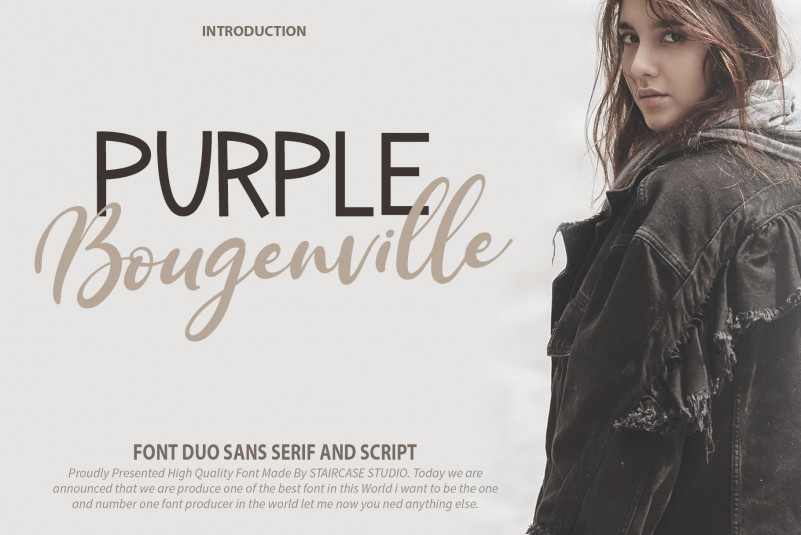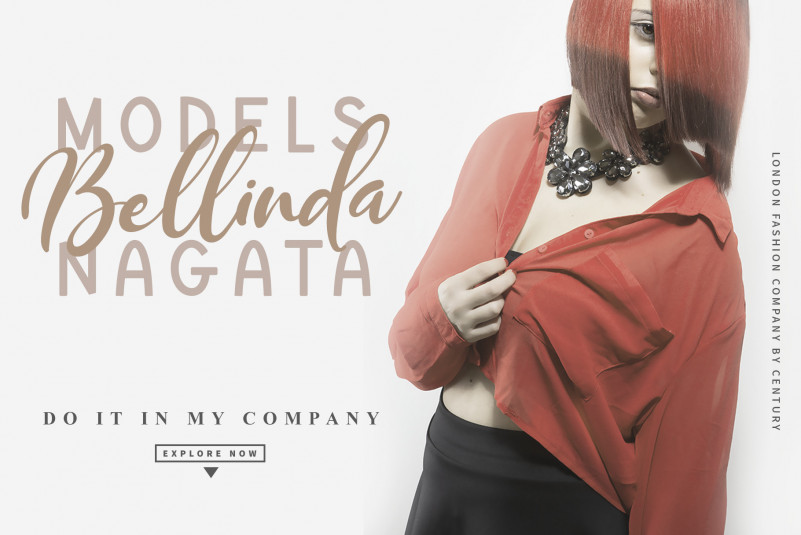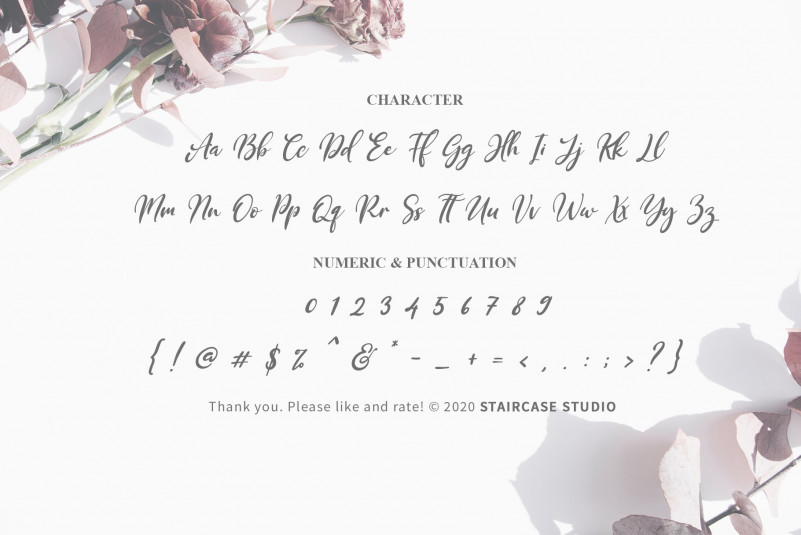
Purple Bougenville Typeface Duo
Purple Bougenville Font Duo, Sans Serif & Script Typefont. A collection of letters and numbers suitable your projects also great for Logotype, Branding Design, Logo Design, Digital Lettering Arts, T-Shirt/Apparel, Poster, Magazine, Signs, Advertising Design, and any design needs.
Designer Name: Staircase_Studio